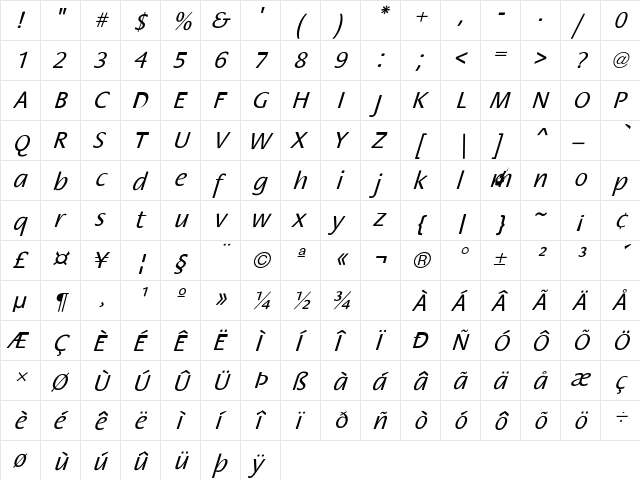
FloraObl-Normal Regular Font Preview
FloraObl-Normal Regular
FloraObl-Normal Regular Font Details
Design Context for FloraObl-Normal Typeface
FloraObl-Normal is a composed and adaptable typeface that performs quietly and consistently across a wide range of design contexts.